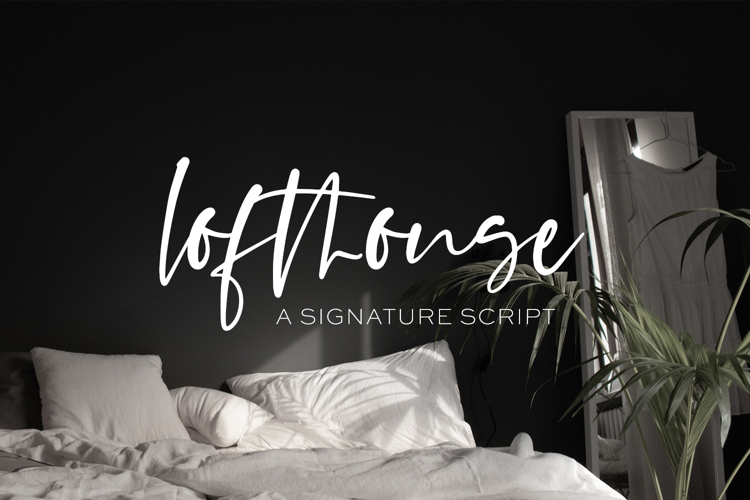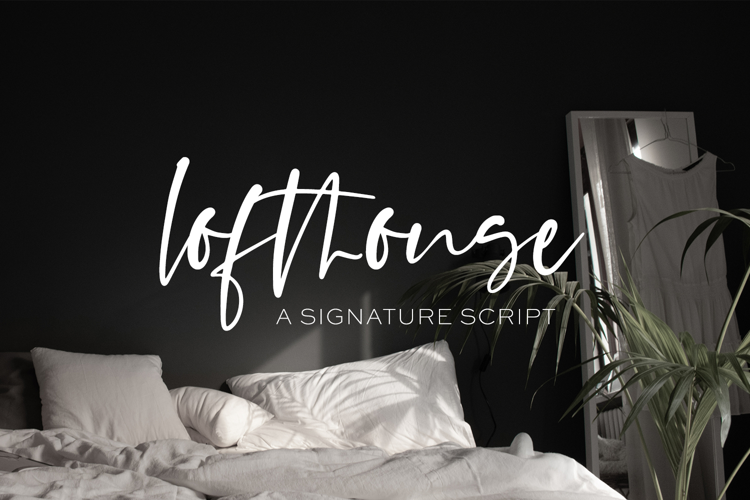
Introducing Lofthouse Script, a handwritten signature style font. This stylish font features a messy, casual look and ligatures to enhance the flow of the handwriting look & feel of your project!
Lofthouse Script is best for:
- website design + website accents - think design blogs, travel blogs, fashion blogs, & more
Lofthouse includes:
- 17 ligatures - ab, ad, ah, am, an, as, bb, dd, ff, ll, mm, nn, oo, pp, rr, th, tt